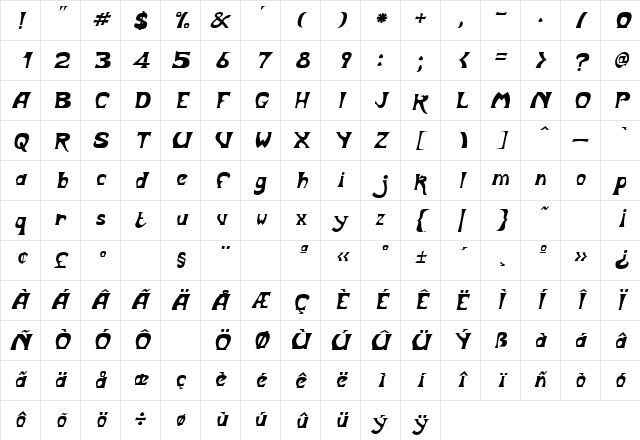
BodyShop Oblique Free Font
BodyShop Oblique
Design Context for BodyShop
BodyShop is a composed and adaptable typeface that performs quietly and consistently across a wide range of design contexts. The slanted form adds forward momentum and visual energy.
Pro Tip: Use BodyShop for emphasis, pull quotes, and subheadings where its slanted energy can add rhythm to the layout.